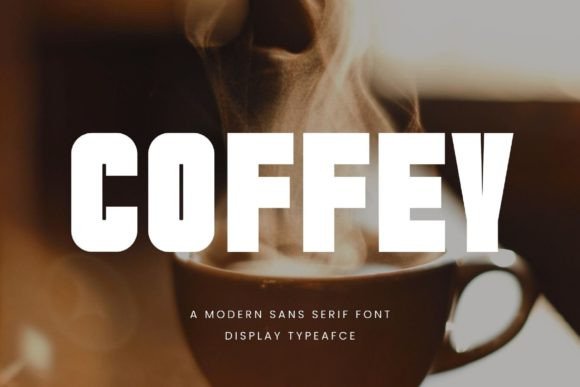
In a world craving authenticity and visual appeal, meet Coffey Font, a sans serif masterpiece that captures the essence of modern aesthetics. Crafted by Perfectype, this font family is not just a collection of letters; it's an artistic expression, a gateway to a world of creative possibilities.
Coffey Font's unique shape and natural writing style breathe life into your typographic designs. Effortlessly blend modernity and elegance in branding, web design, editorial projects, prints, crafts, and quotes. Whether you're a seasoned designer or a creative enthusiast, Coffey Font empowers you to turn your ideas into stunning visuals.
Imagine your logotypes radiating with sophistication, wedding invitations exuding romance, and packaging designs captivating your audience. Let Coffey Font's charm elevate your labels, spell names with a touch of uniqueness, and add a personal touch to your creative pursuits.
Unleash your creativity and watch as Coffey Font brings your vision to life, transforming ordinary designs into masterpieces. With its versatility and emotional appeal, this font family ignites inspiration and fuels your imagination.
Step into the realm of typographic excellence with Coffey Font. Let your designs stand out, communicate your message with impact, and leave a lasting impression on your audience. The possibilities are endless, waiting for you to explore and make them your own.